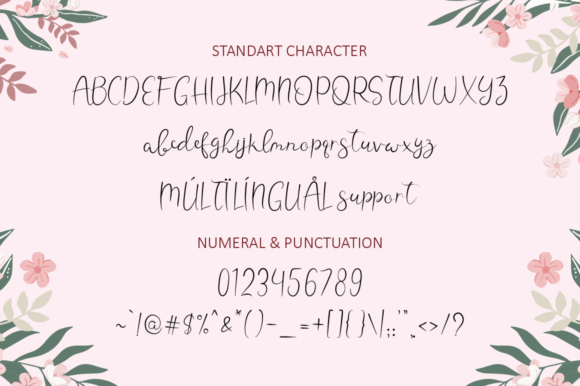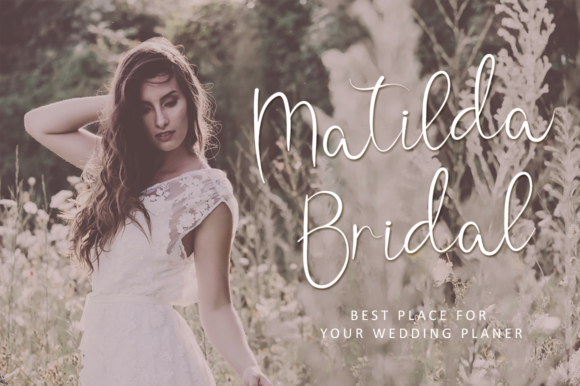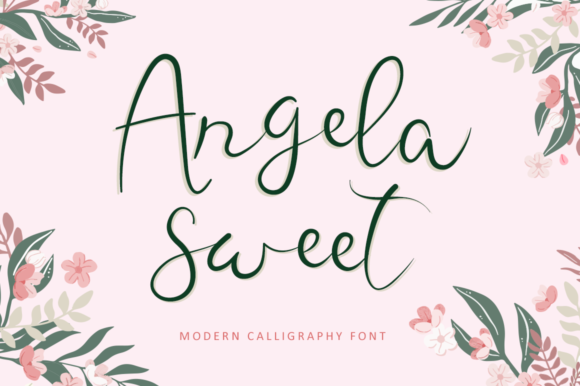
Angela Sweet Font
Angela Sweet Font is a delicate, elegant and flowing handwritten font. It has beautiful and well balanced characters and as a result, it matches a wide pool of designs. Add it to your most creative ideas and notice how it makes them come alive!